10 Fishtail Embroidery Fonts Never Go Out of Style
A fishtail embroidery font does not need to be loud to stand out. Its flared tail shape already gives each letter movement, charm, and a finished monogram feel. Browse the Apex fishtail embroidery fonts picks below, from satin stitch letters to applique styles, and find the one that fits your next machine embroidery project.
What Makes a Fishtail Embroidery Font Different?
A fishtail embroidery font has decorative letter ends that flare, curve, or split like a tail, giving each initial more movement and personality. It is popular for monograms because the letters look styled before extra artwork is added. The result feels bold, classic, playful, and easy to personalize.
The real appeal is the shape. With many embroidery fonts, the letter is just the letter. Useful, yes. But not always memorable. A fishtail font gives the letter a little posture.
For monograms, this matters even more. A single initial needs enough design weight to stand alone. A fishtail monogram embroidery font solves that problem without needing a frame, bow, flower, or extra border. The letter already carries the design.
10 Best Fishtail Embroidery Fonts from Apex
Here are ten Apex fishtail embroidery font picks to browse first.
Fish Tail Embroidery Font
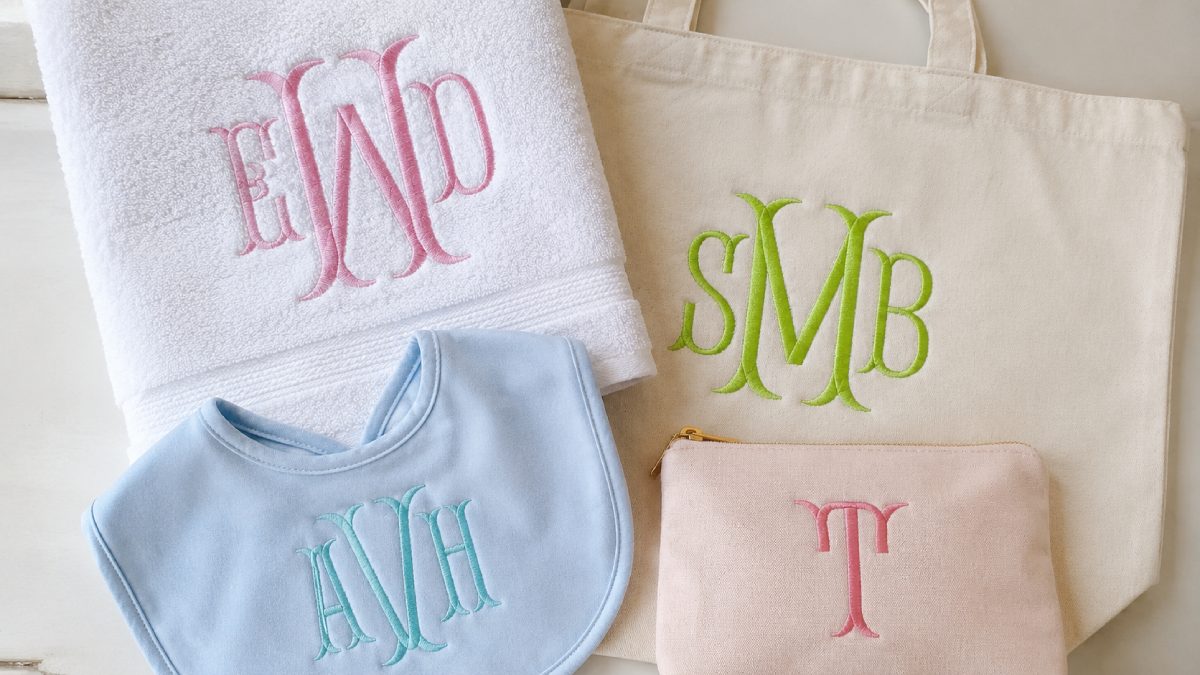
The Fish Tail Embroidery Font has a tall, slim alphabet look with that clear fishtail ending people recognize fast.
Use it for towels, shirts, tote bags, kids’ items, casual gifts, and everyday initials. It does not need much help. A clean thread color and a good fabric choice are usually enough.
Fishtail Applique Embroidery Font
This is the pick when thread alone is not enough. The Fishtail Applique Embroidery Font is made for bigger, fabric-filled letters that become the center of the project.
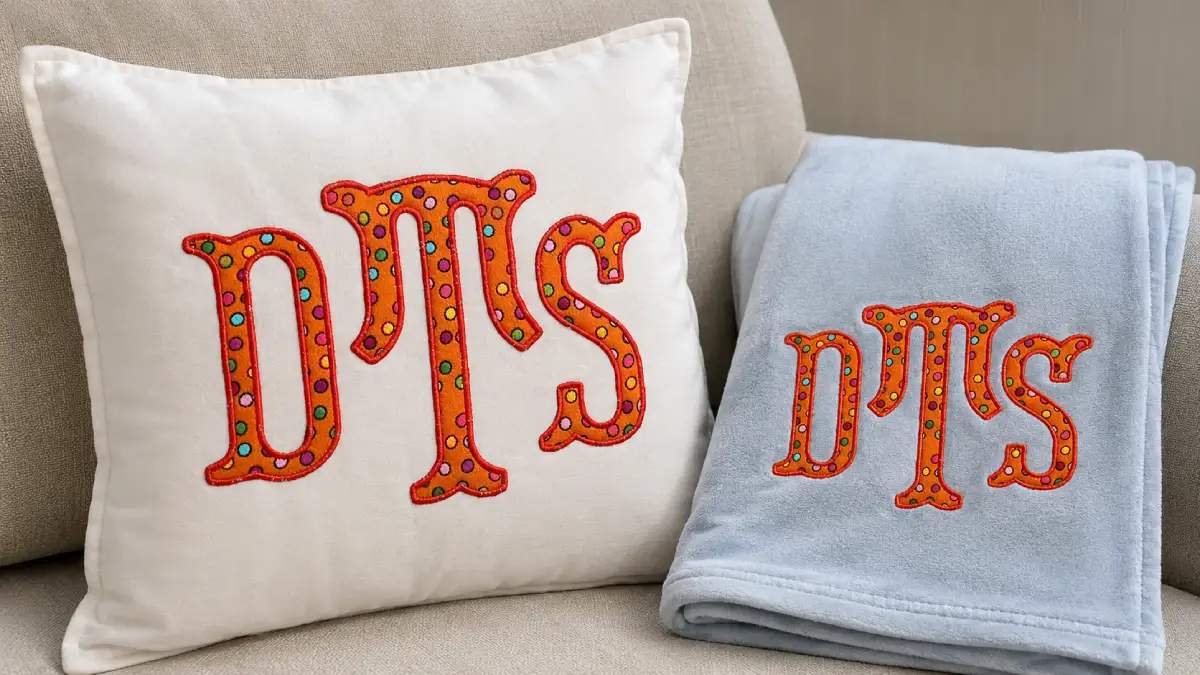
You can use gingham for a sweet look. Use florals for baby gifts. Use bold solids for school or team colors. Use seasonal prints for holiday items...
Fish Tail Large Embroidery Font
Some projects need scale. Not a small initial hiding in the corner. Not a polite little name.
The Fish Tail Large Embroidery Font is built for that. It uses fill stitch and comes in large sizes: 8", 10", 12", and 14". That makes it a strong choice for oversized embroidery projects where the letter needs to stay visible and balanced.
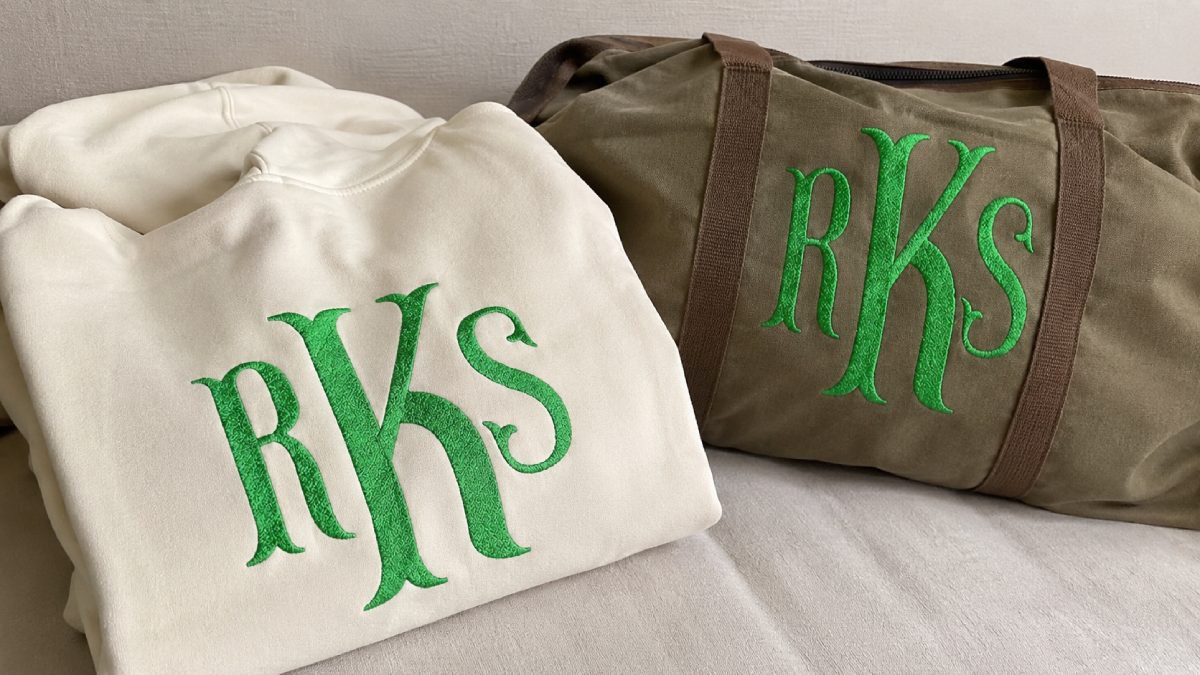
Fishtail Monogram Embroidery Font
This one has a fancy fish tail look without going too large. It comes in four useful sizes: 0.75", 1", 1.5", and 2".
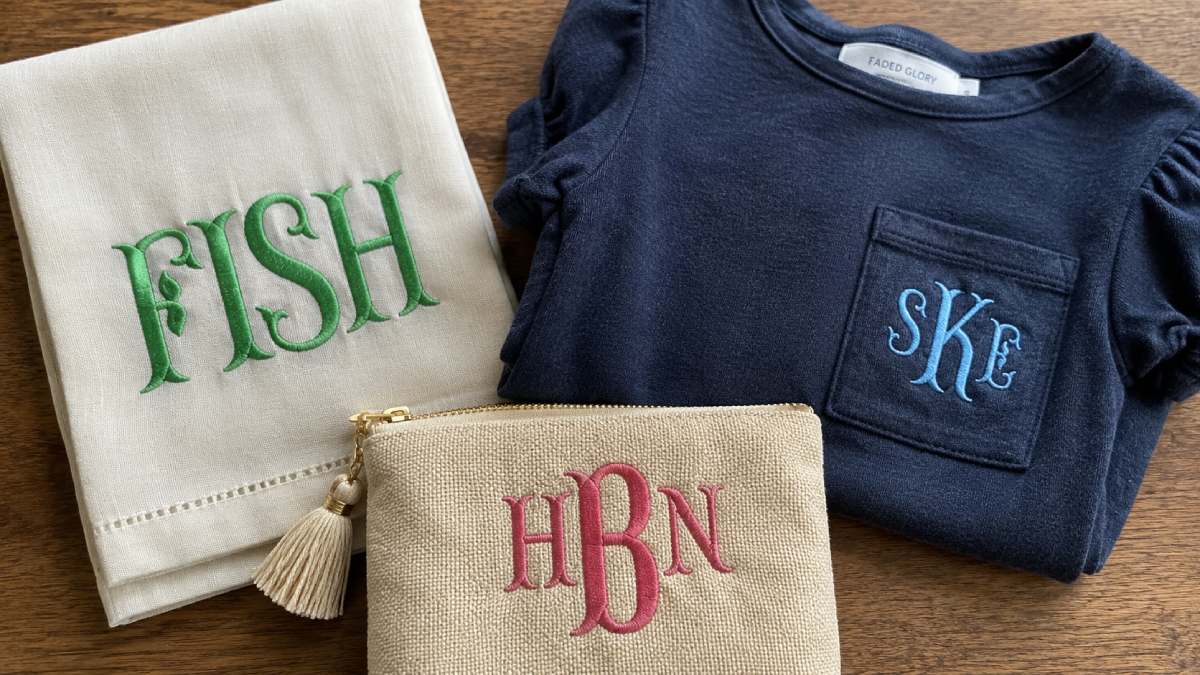
A fishtail monogram embroidery font like this is helpful because it adds style at a smaller scale.
Round Circle Fishtail Monogram Embroidery Font
Round Circle Fishtail Monogram Font has a different kind of polish. They look contained, balanced, and finished. The Round Circle Fishtail Monogram Embroidery Font brings that classic circle layout together with fishtail letter styling.
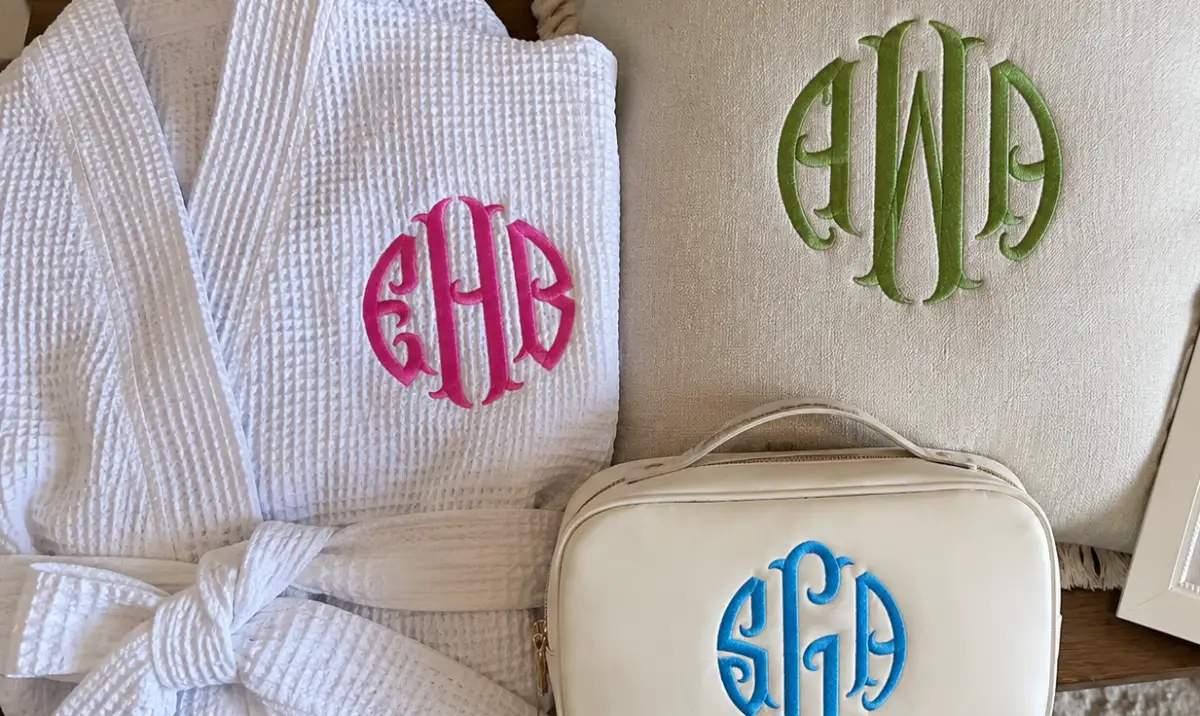
Towels, robes, bags, pillows, wedding gifts,... are all strong fits.
Round Circle Fishtail Sketch Embroidery Font
The sketch version gives the fishtail look a lighter, more relaxed feel. It still has the circle monogram structure, but it does not feel as dense or formal as a heavier filled design.
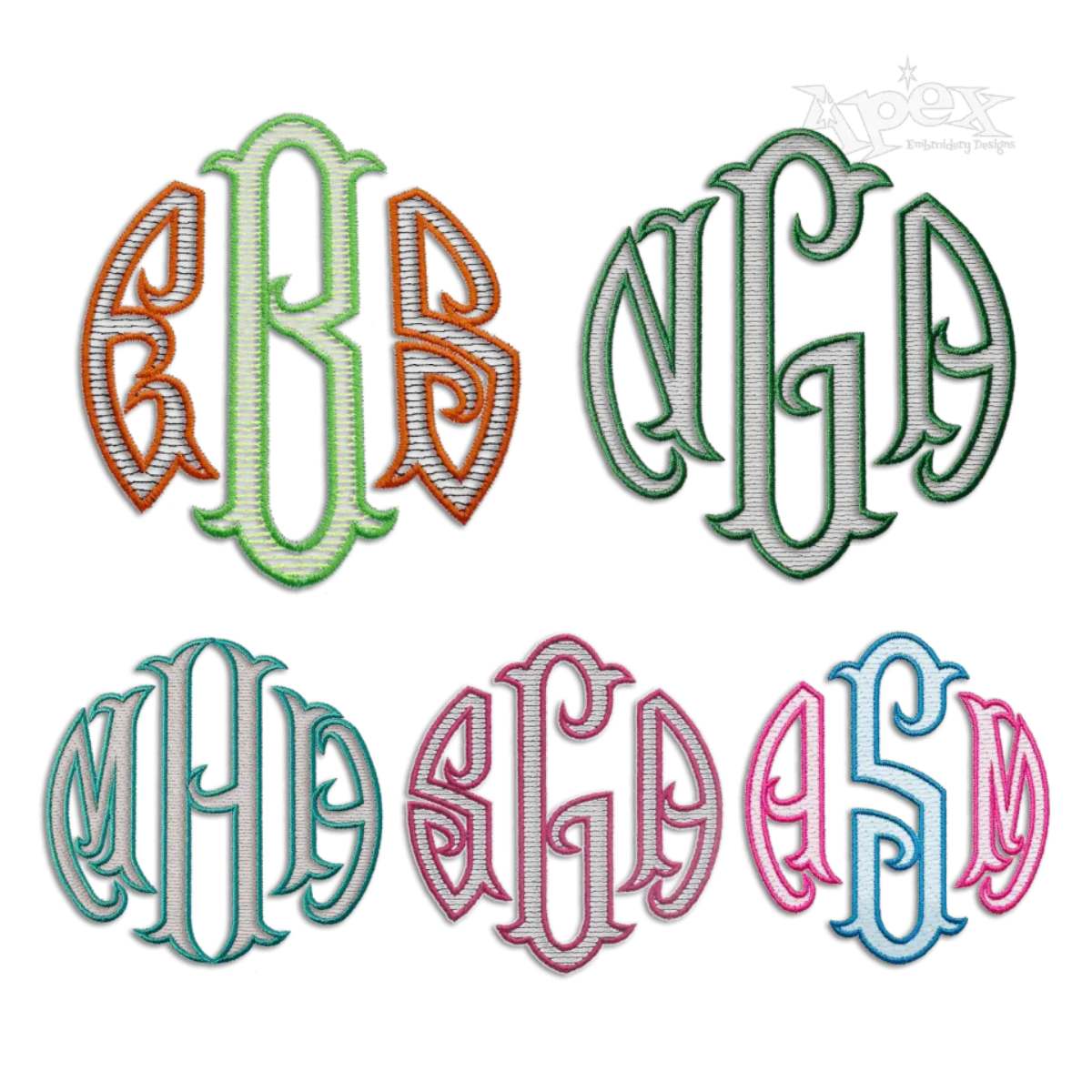
Fishtail Rounded Embroidery Font
Not every fishtail project needs a sharp edge. Sometimes you want the fishtail shape, but softer. That is where the Fishtail Rounded Embroidery Font fits well.
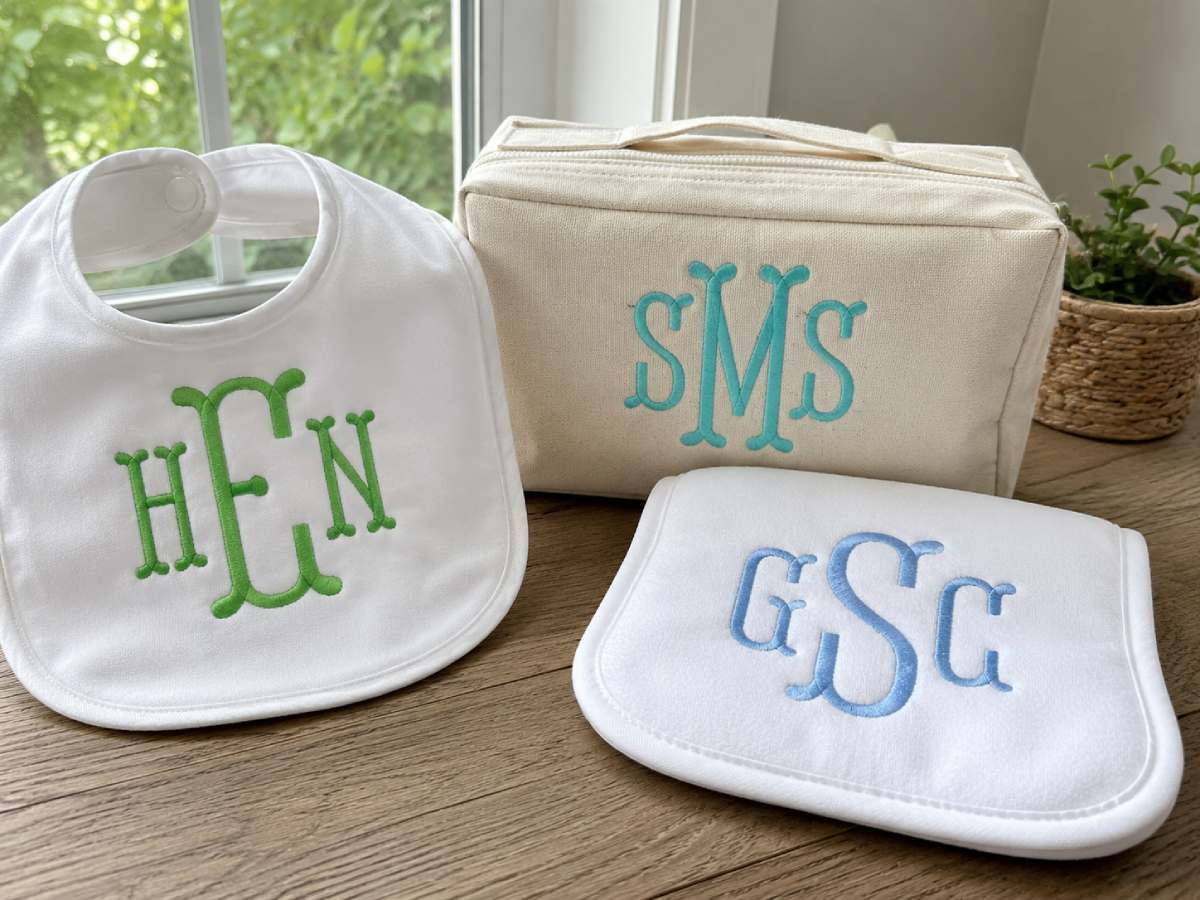
The rounded style gives the letters a friendlier feel, especially for baby gifts, kids’ bags, family items, and casual boutique projects.
Fishtail Bold Embroidery Font
When the project needs more weight, go bold. The Fishtail Bold Embroidery Font has a stronger, chunkier look than the slimmer fishtail styles. It comes in 1", 1.5", and 2" sizes.
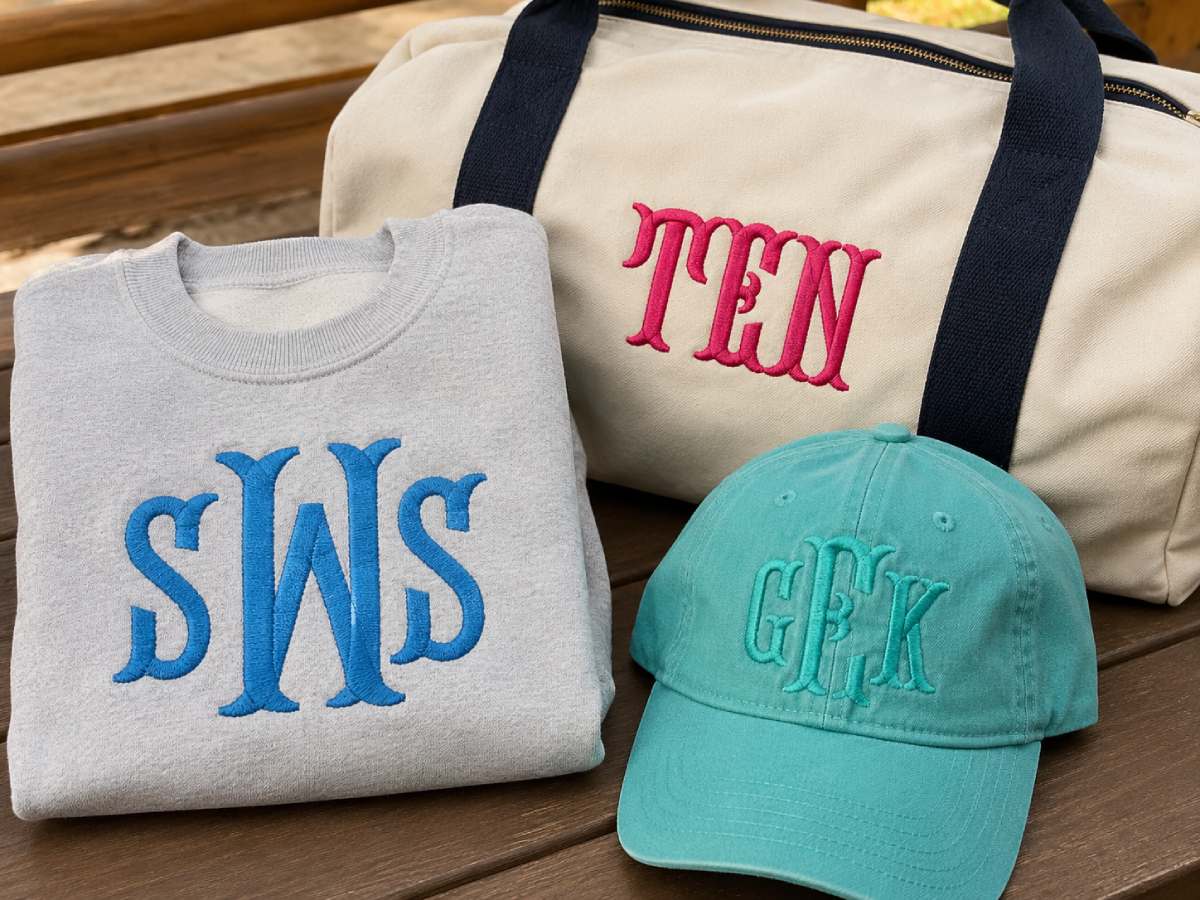
The bold style also helps when the fabric or item already has visual texture. A thinner font can disappear. A bold fishtail letter holds its place.
Diamond Triangle Fishtail Embroidery Fonts
This one has more structure. The Diamond Triangle Fishtail Embroidery Fonts set has a geometric feel, with sizes 1", 2", and 3". It is still fishtail, but the shape feels sharper and more graphic.
Fishtail Oval Applique Monogram Embroidery Font
The Fishtail Oval Applique Monogram Embroidery Font is for people who want the monogram to feel framed and gift-ready.
It includes 3", 4", and 5" sizes and is designed for 3-letter monograms. This makes it a strong fit for pillows, linens, towels, baby gifts, tote bags, nursery décor, wedding gifts, and boutique-style home projects.
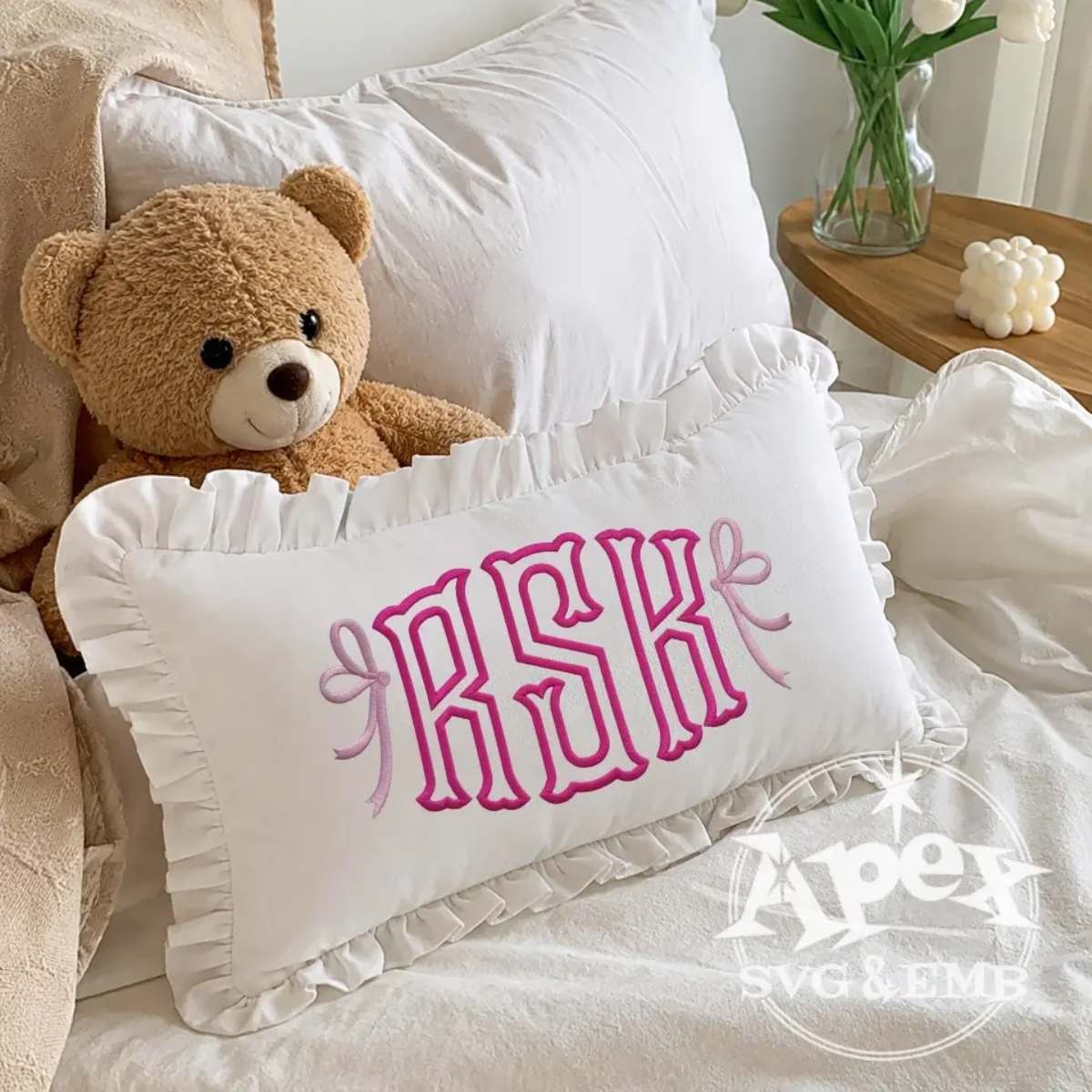
Final Thoughts
A fishtail embroidery font stays popular because it gives every letter more shape, movement, and personality without making the design feel overdone. From slim satin stitch letters to applique monograms, rounded styles, bold alphabets, and geometric layouts, each Apex fishtail embroidery font has its own place.